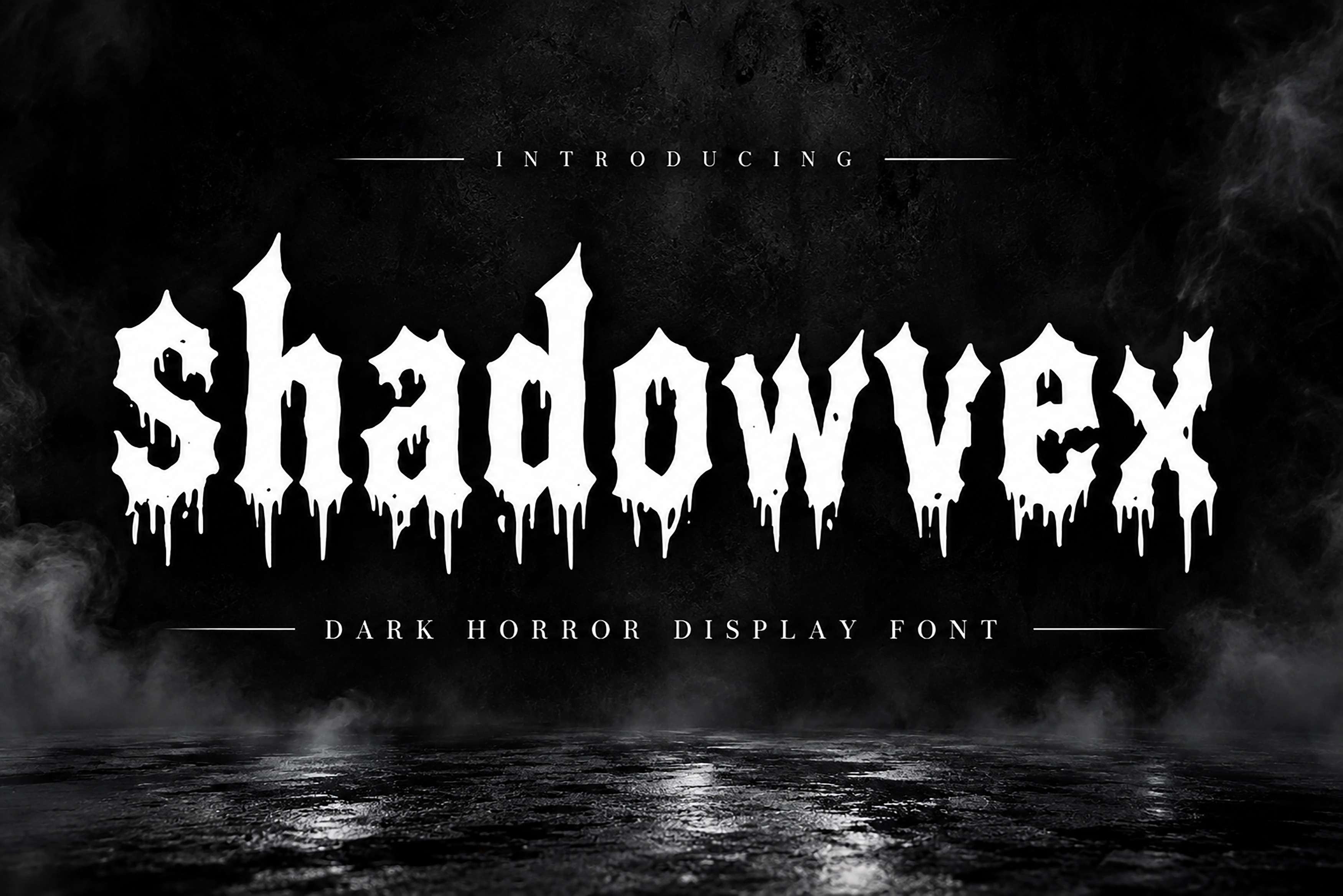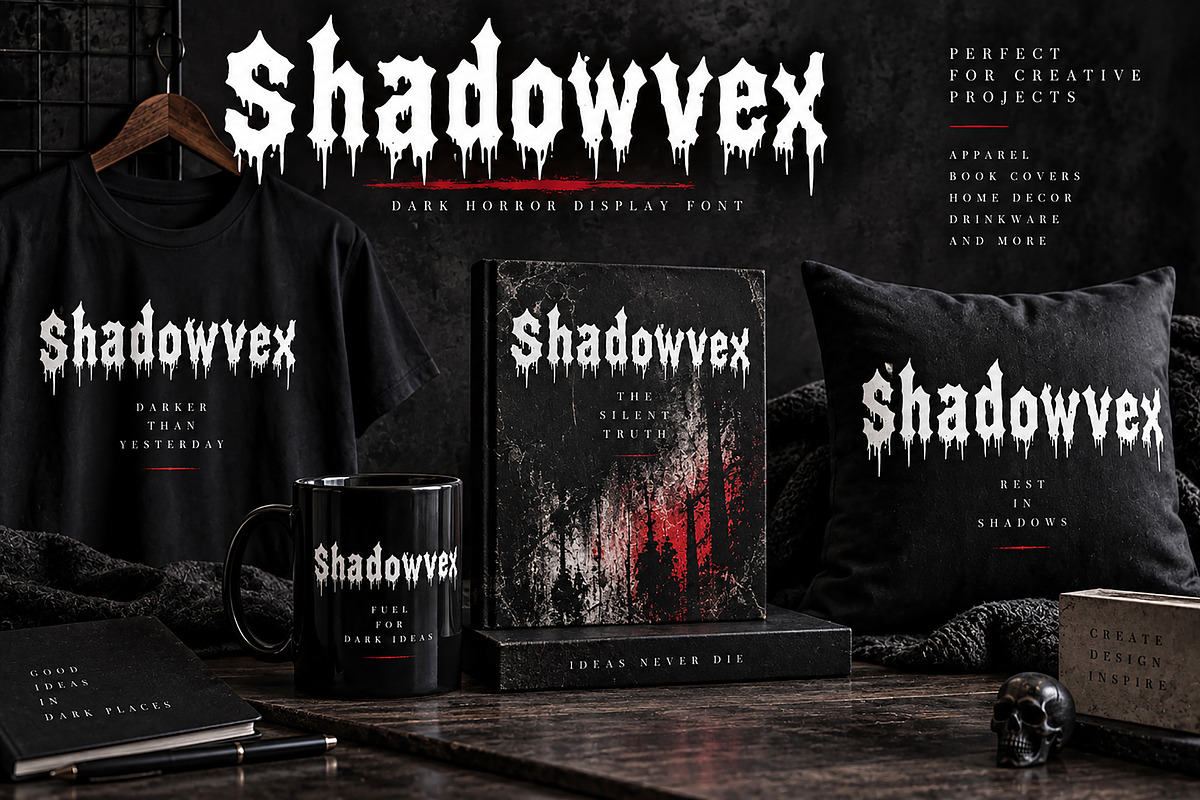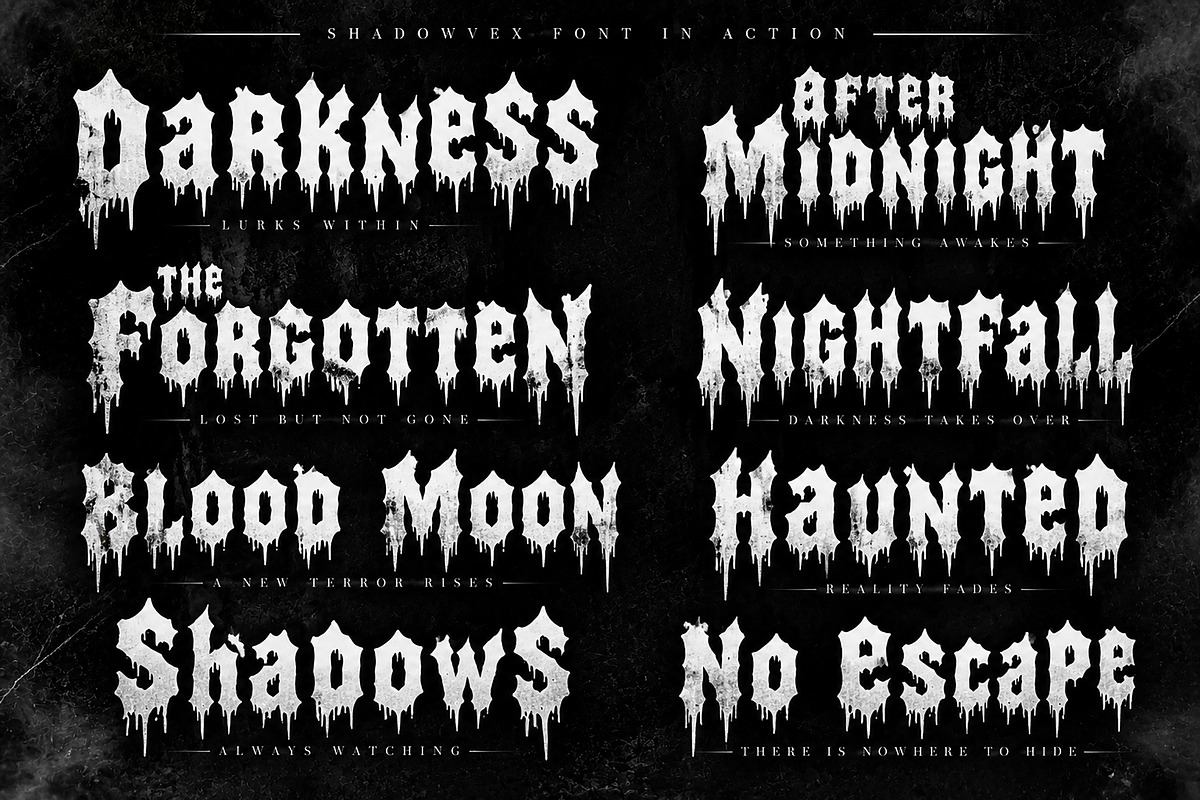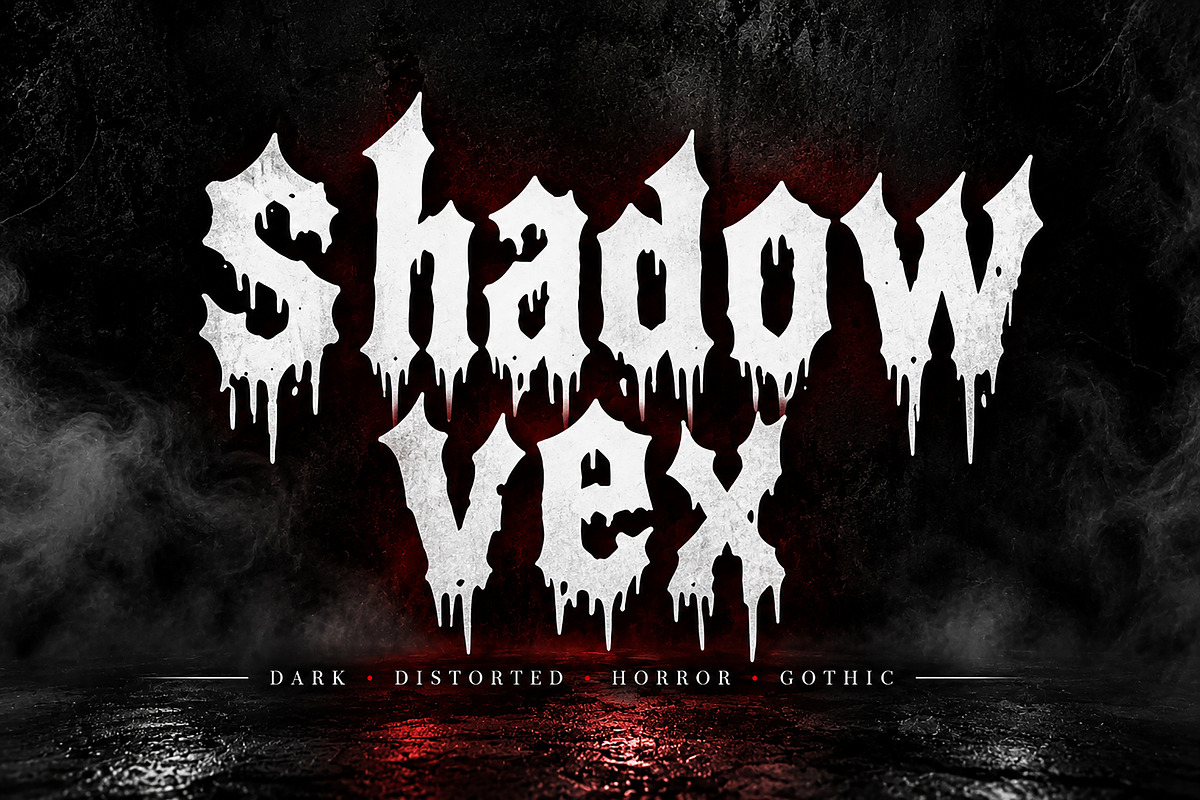
Shadowvex — Dark Horror Display Font
Shadowvex is a dark and sinister horror display font designed to bring an eerie, gothic atmosphere to your creative projects. Featuring bold gothic letterforms, sharp details, and distinctive dripping elements, Shadowvex is perfect for designs that need a mysterious, dramatic, and unforgettable visual impact.
Its striking display style makes it ideal for horror-themed artwork, dark typography, movie-style titles, posters, album artwork, book covers, apparel designs, merchandise, social media graphics, branding, and more.
Whether you're creating something terrifying, mysterious, gothic, or simply want a bold dark aesthetic, Shadowvex adds an instantly recognizable horror-inspired character to your typography.
Horror Posters
Movie Titles
Album Artwork
T-Shirt Designs
Apparel & Merchandise
Gothic Branding
Halloween Designs
Dark Typography
Horror-Themed Graphics
Social Media Designs
Logos & Titles
Stickers & Prints
Creative Merchandise
Digital Artwork
Create dark. Create mysterious. Enter the darkness with Shadowvex.